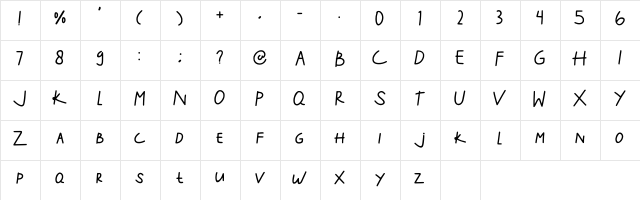
Cute Woman Regular
Design Context for Cute Woman Typeface
Cute Woman is a composed and adaptable typeface that performs quietly and consistently across a wide range of design contexts.
Pro Tip: Use Cute Woman in both headline and body roles to test its range before committing to a single application.